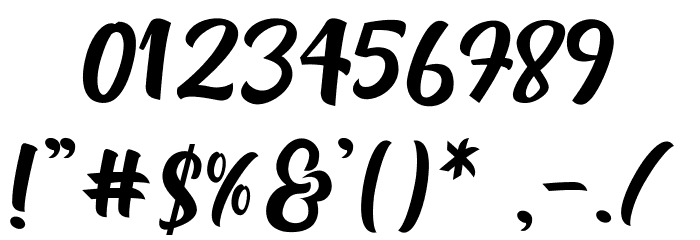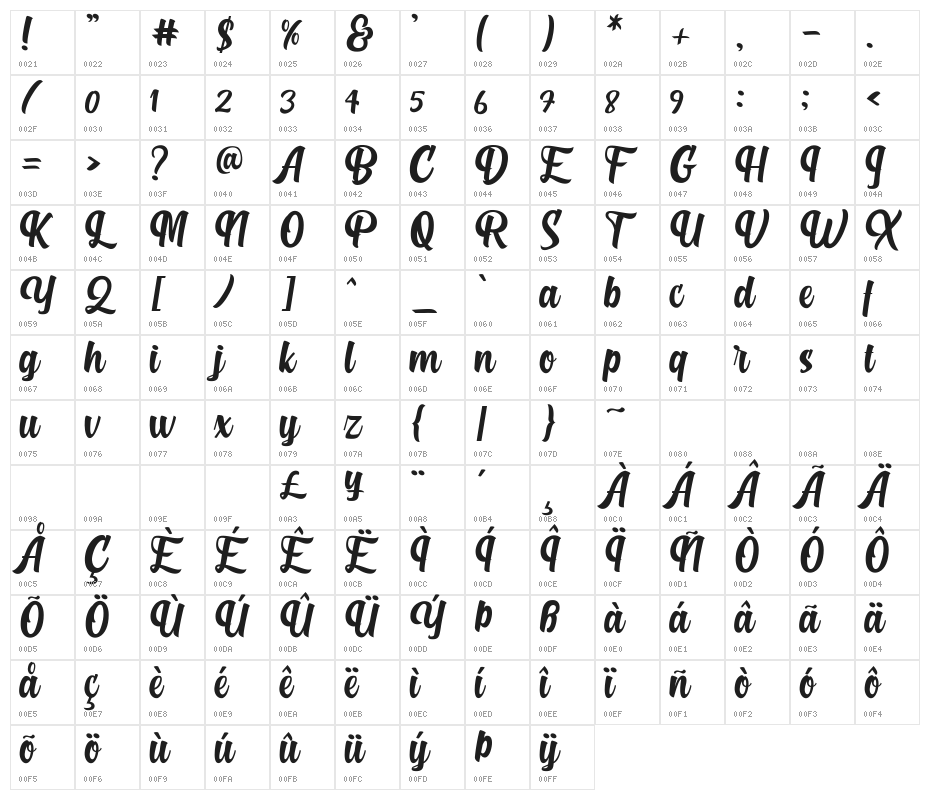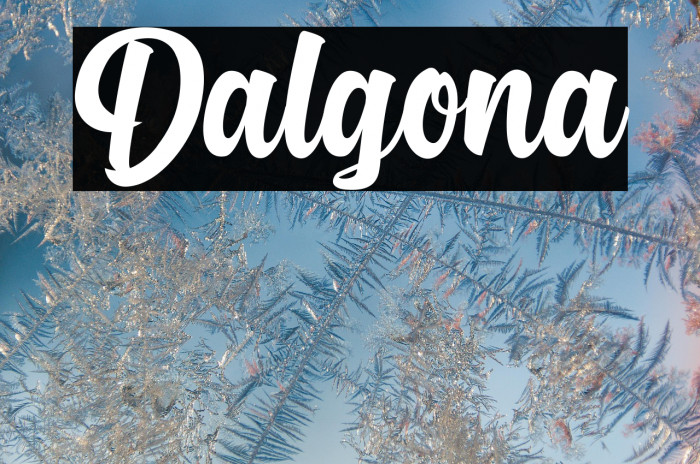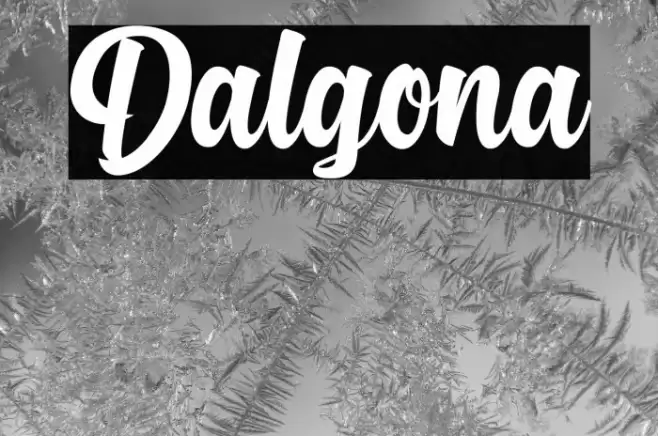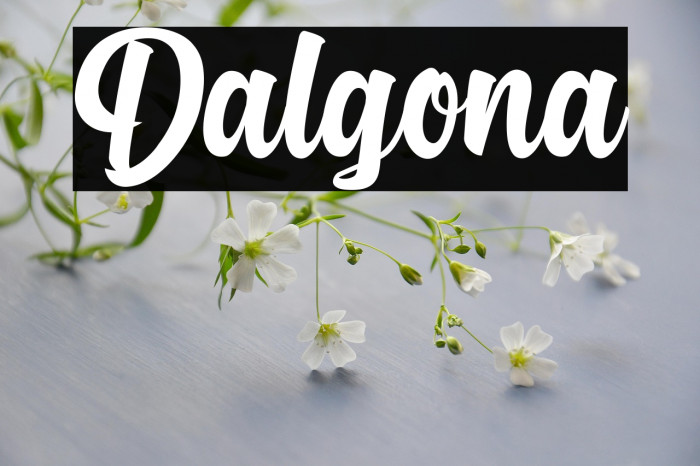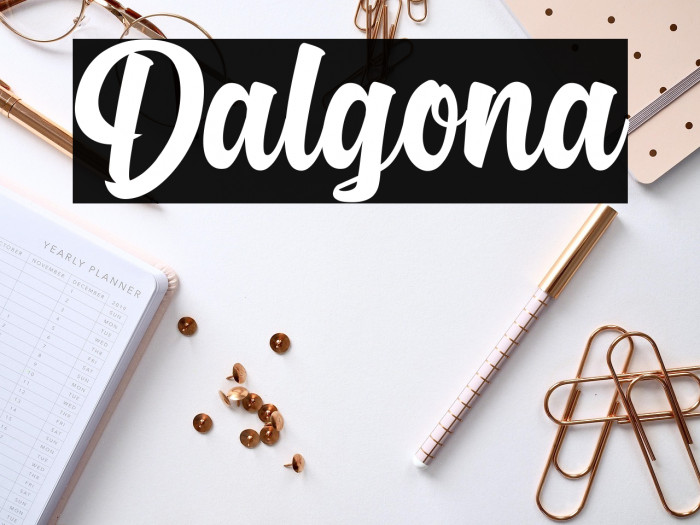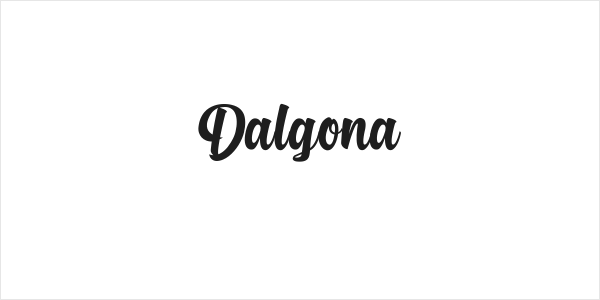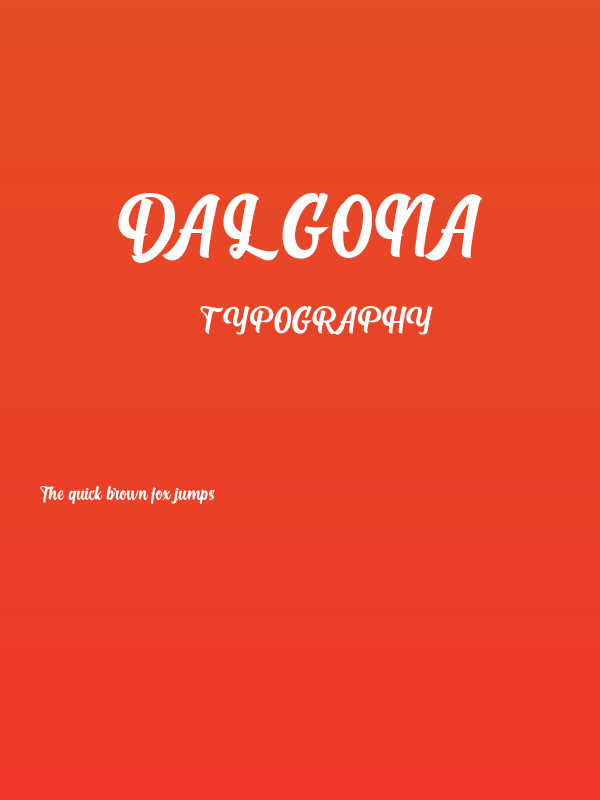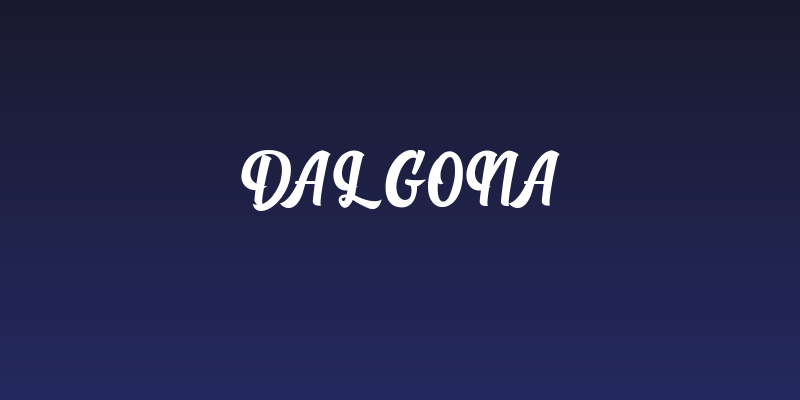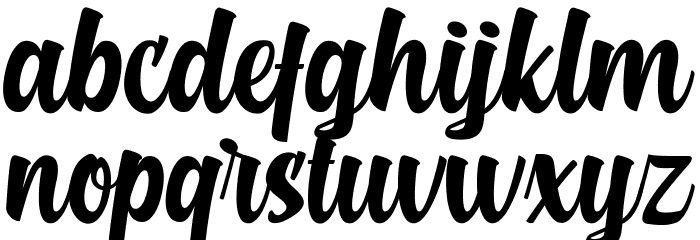
Dalgona Font
Dalgona Description
This font features a bold and flowing script style, characterized by its smooth, connected letters that mimic the fluidity of handwriting. The uppercase letters are elegantly curved, while the lowercase letters maintain a consistent rhythm, enhancing readability. The numbers and special characters are crafted with the same attention to detail, ensuring a cohesive look across all elements. The font's playful yet sophisticated appearance makes it suitable for a variety of creative projects.
| Proposed Projects | Ideal for branding, invitations, greeting cards, and social media graphics. |